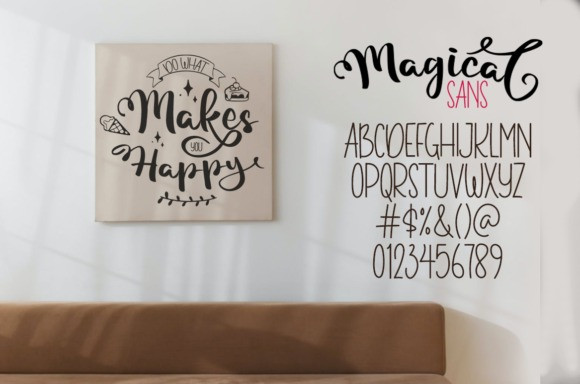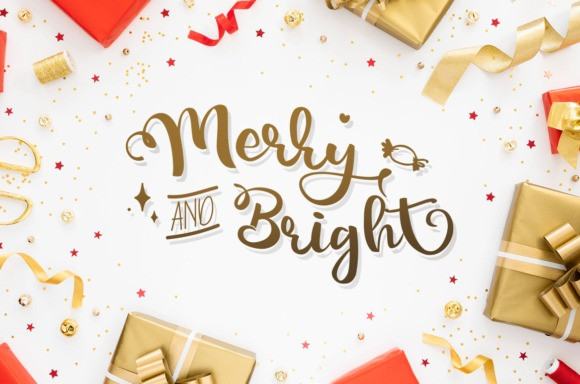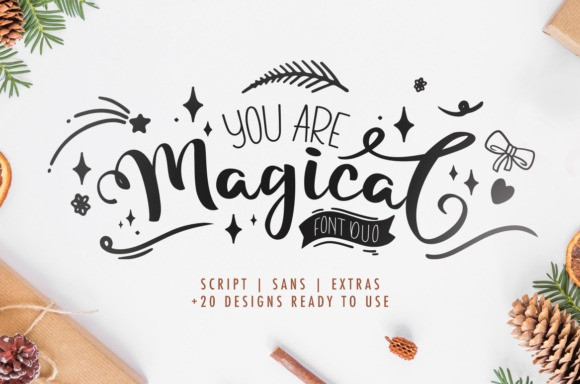
Magical Script Font
Magical is a beautiful and romantic duo font (sans serif and handwritten). It looks dazzling on wedding invitations, thank you cards, quotes, greeting cards, logos, business cards and every other design which needs a customized touch.